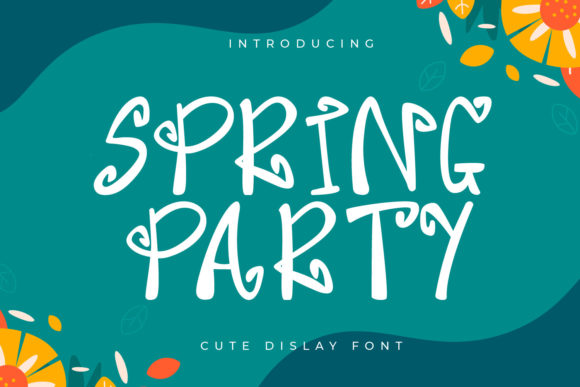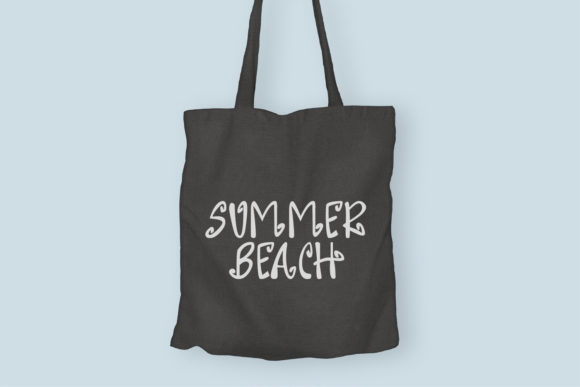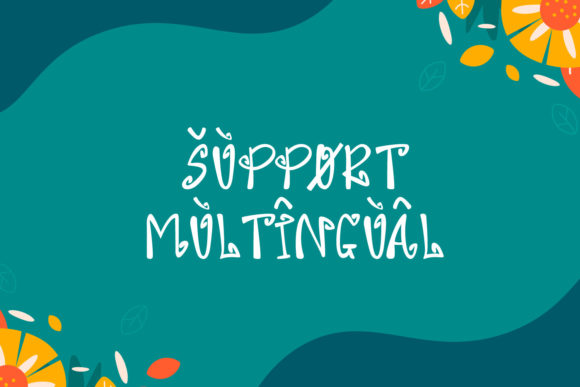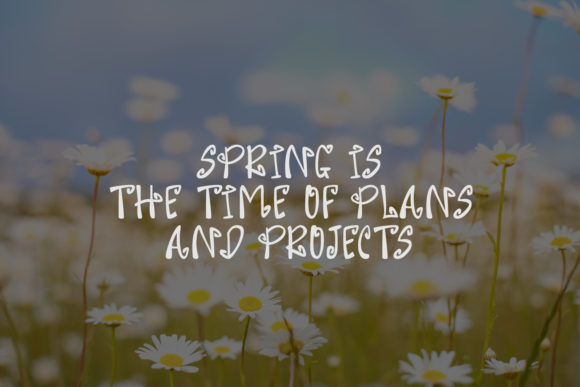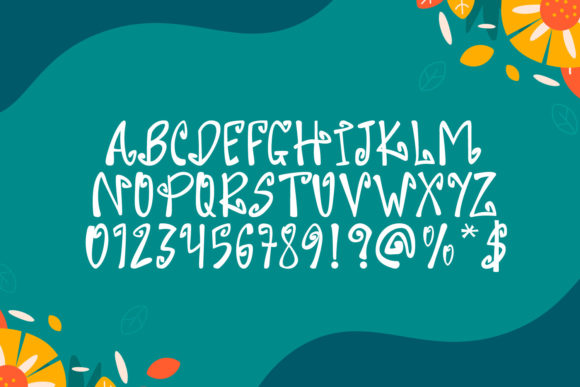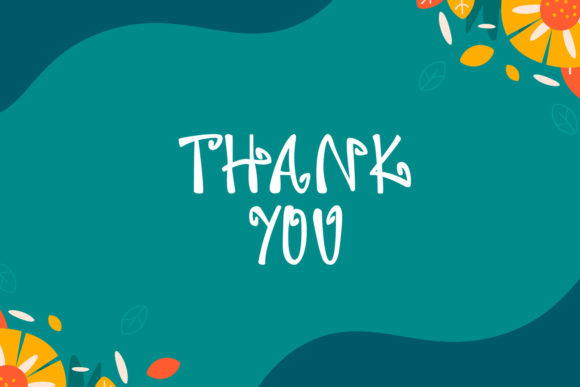
Spring Party Font
Spring Party is a curly, quirky and whimsical handwritten font. Its informal style and casual vibe will make this font a go-to choice for each of the creations that require a relaxed touch.